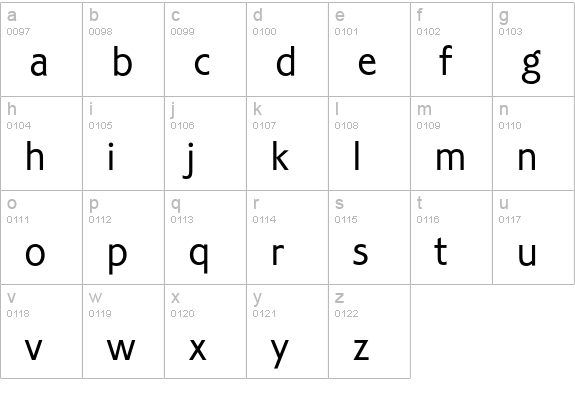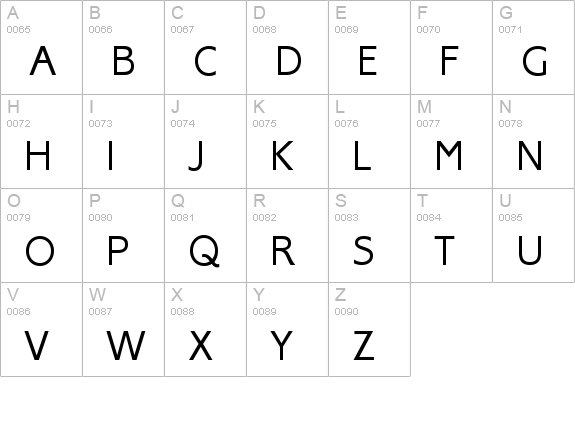
Readers Font Details
Readers font is a stunning typeface that captures the essence of elegance and sophistication. With its clean lines and graceful curves, this font is perfect for any design project that requires a touch of refinement. Whether you're creating a wedding invitation, a logo for a luxury brand, or a magazine layout, Readers font will make your text stand out with its timeless beauty. But what makes Readers font even more appealing is the fact that it is free! Yes, you read that right. This incredible font is freely available to download at FontsMarket.com. Now you can add a touch of class to your designs without spending a dime. Designed with readability in mind, Readers font ensures that your text is easily legible, no matter the size or context. The carefully crafted letterforms and balanced spacing make this font a pleasure to read, making it suitable for both print and digital applications. Whether you're a professional designer or a casual user, Readers font is a must-have in your font library. Its versatility and timeless appeal make it suitable for a wide range of projects, from branding materials to editorial layouts. So why wait? Head over to FontsMarket.com and download Readers font for free today!